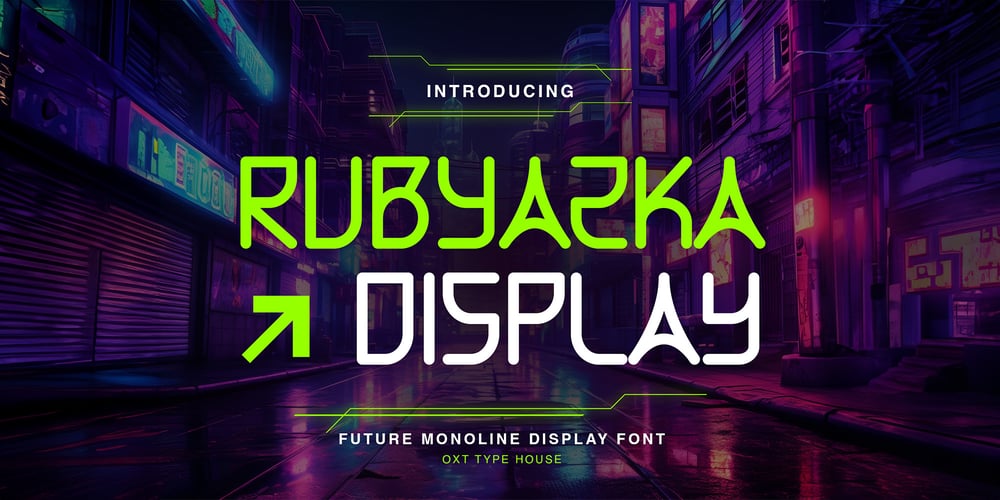
Rubyazka
Rubyazka font
Rubyazka Font Family was designed by Oksta Aziz Rachmaddan and published by Oxt Type House. Rubyazka contains 1 styles and family package options. This font offers a perfect balance between futuristic and technological concepts with a softer yet modern design.Its characteristics stand out with curved corners, giving a sense of fluidity and dynamism, as if inspired by the flow of data and energy.Each letter has an aerodynamic shape and curves elegantly, creating a smooth yet bold aesthetic.Its clean, minimalist lines reflect speed and efficiency, while the subtle curves add a sophisticated futuristic touch.This font is perfect for design projects that want to convey a cutting-edge technological image with a more friendly and organic feel.